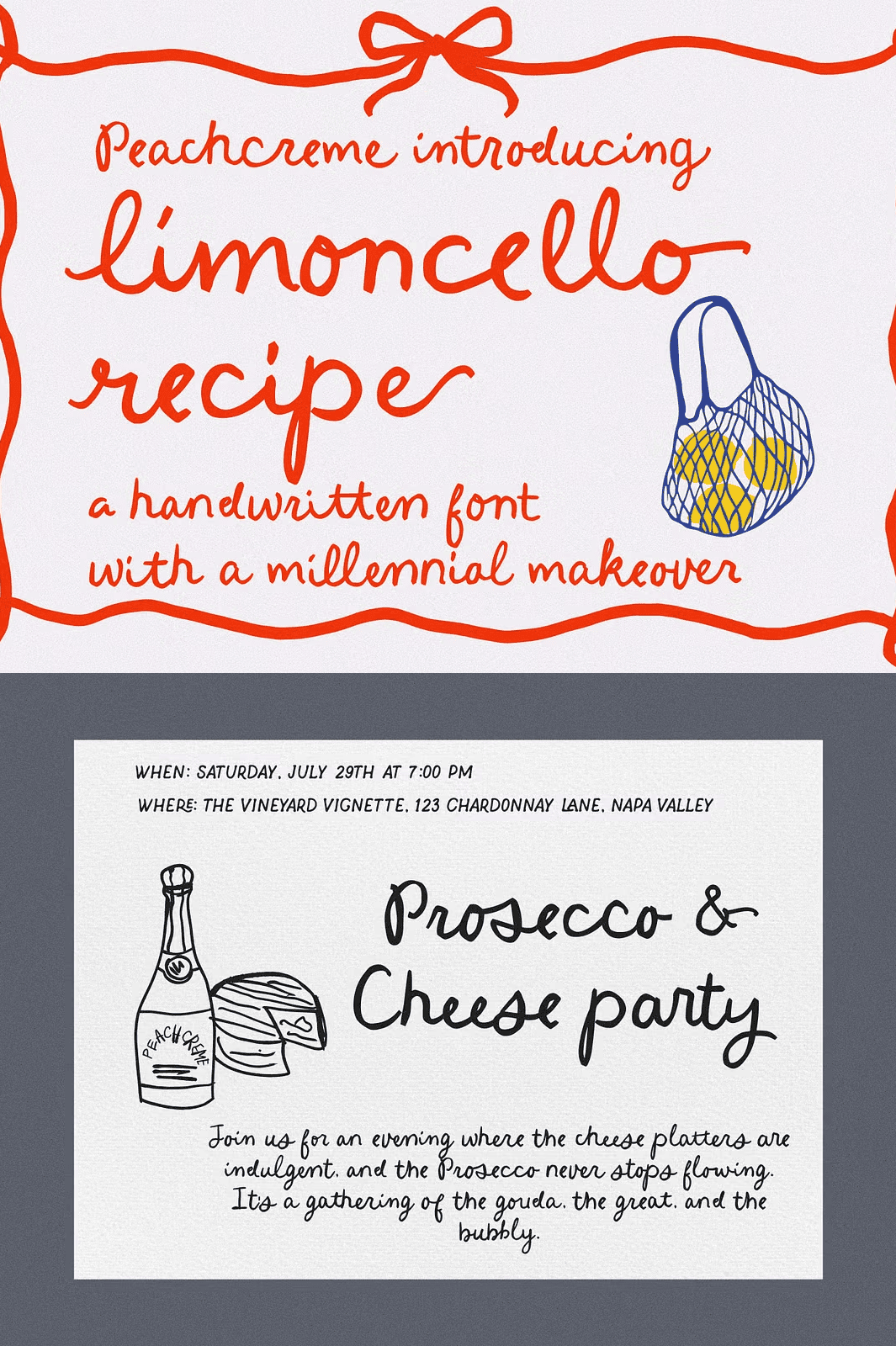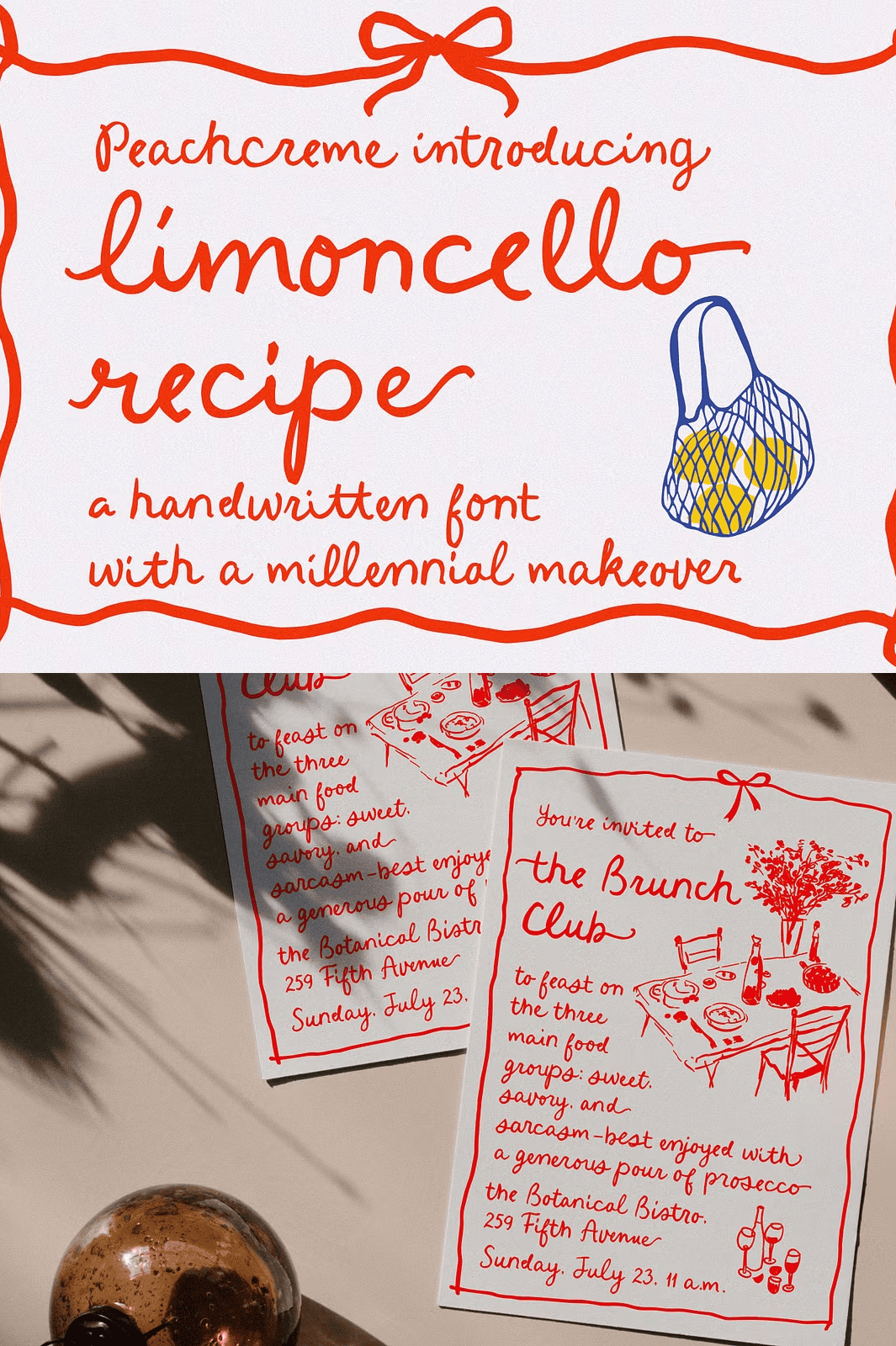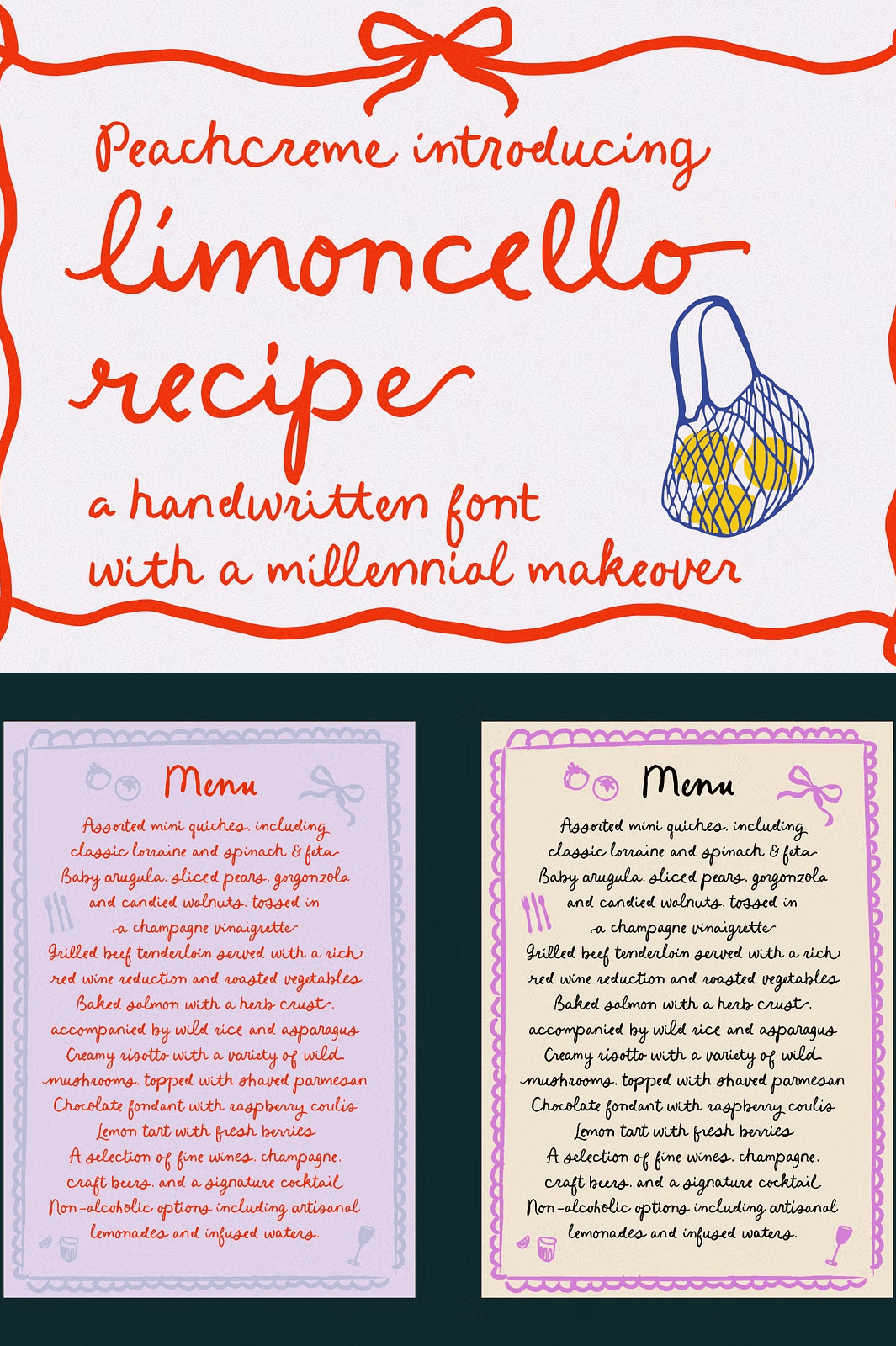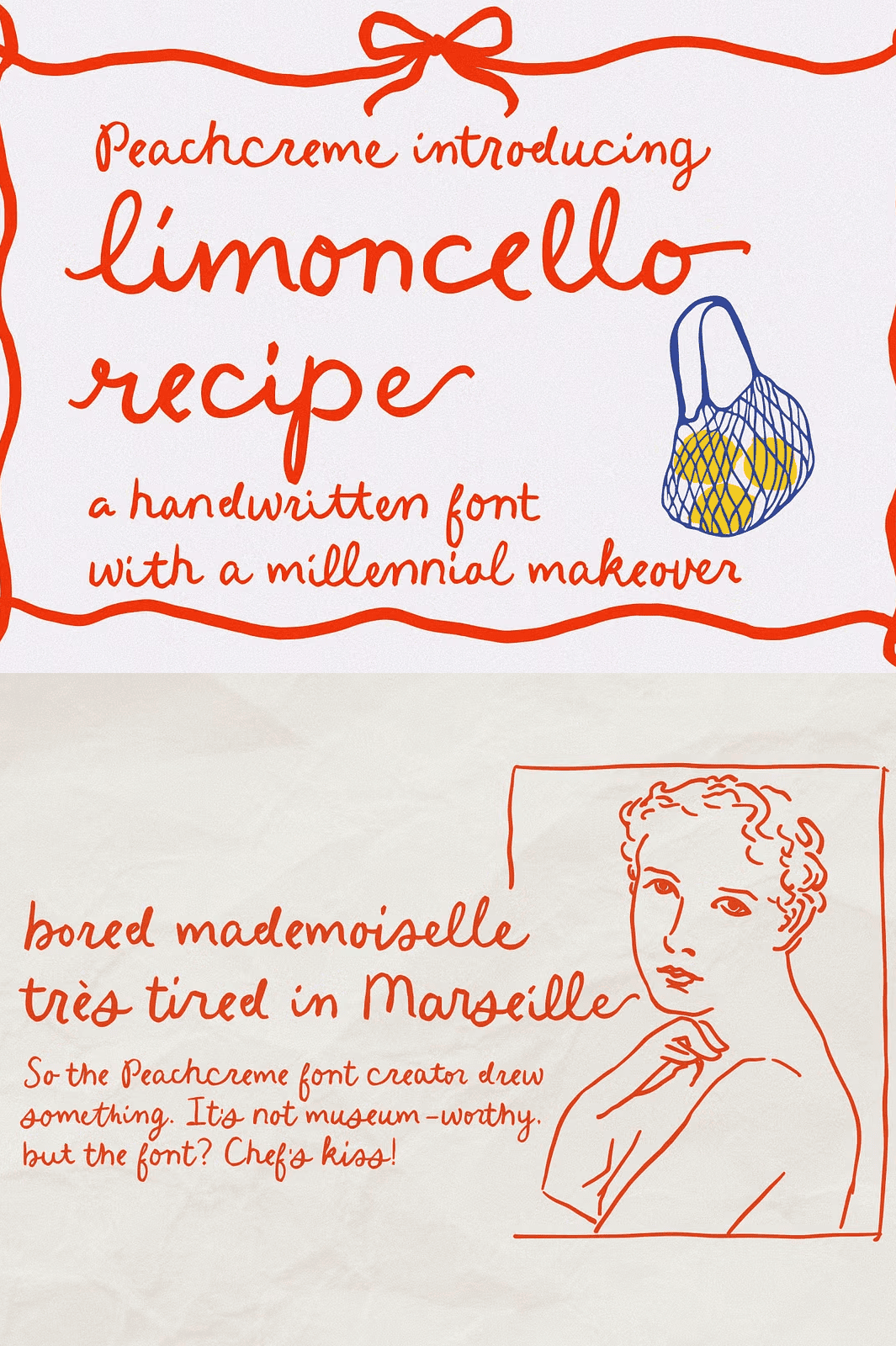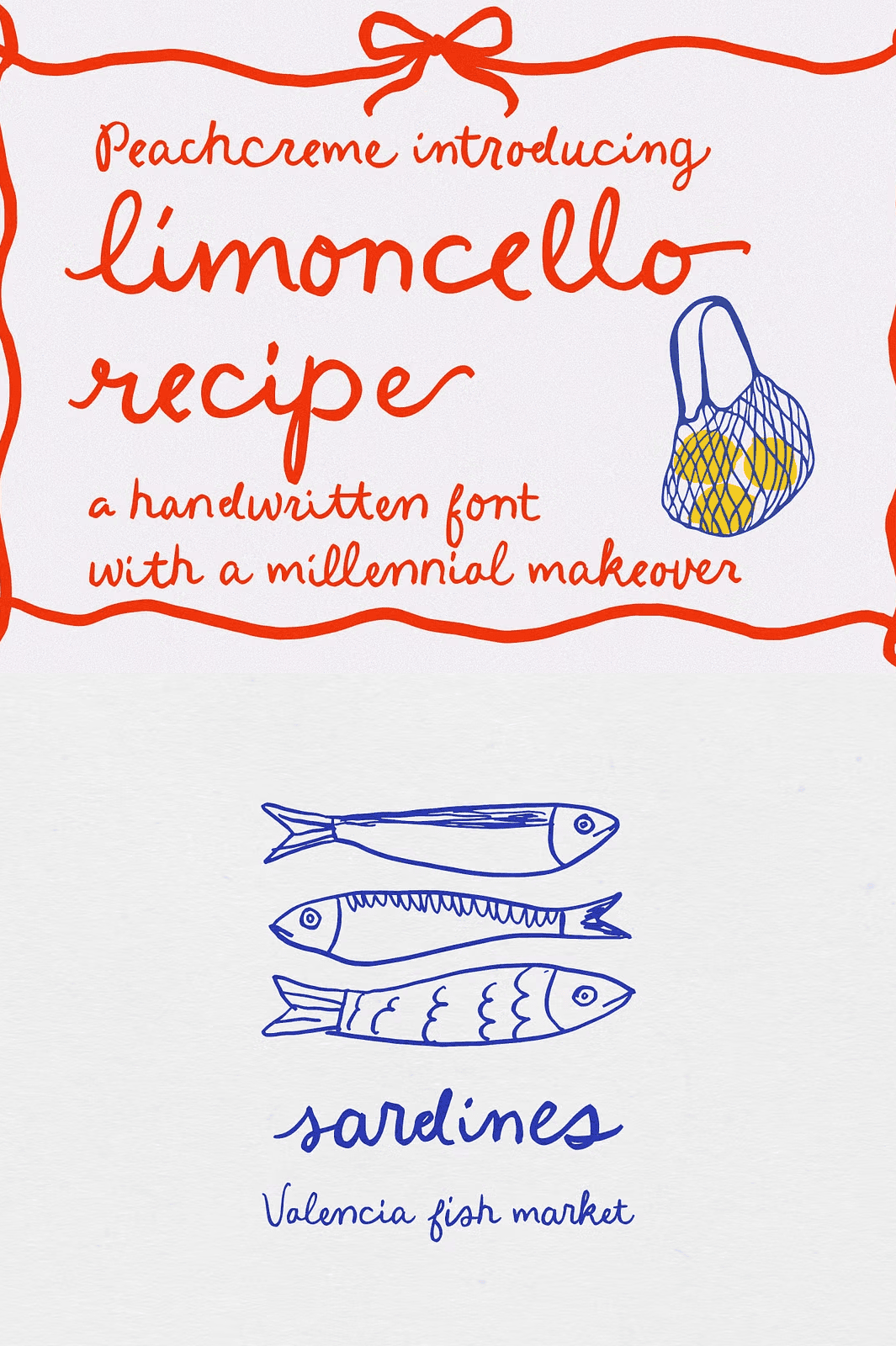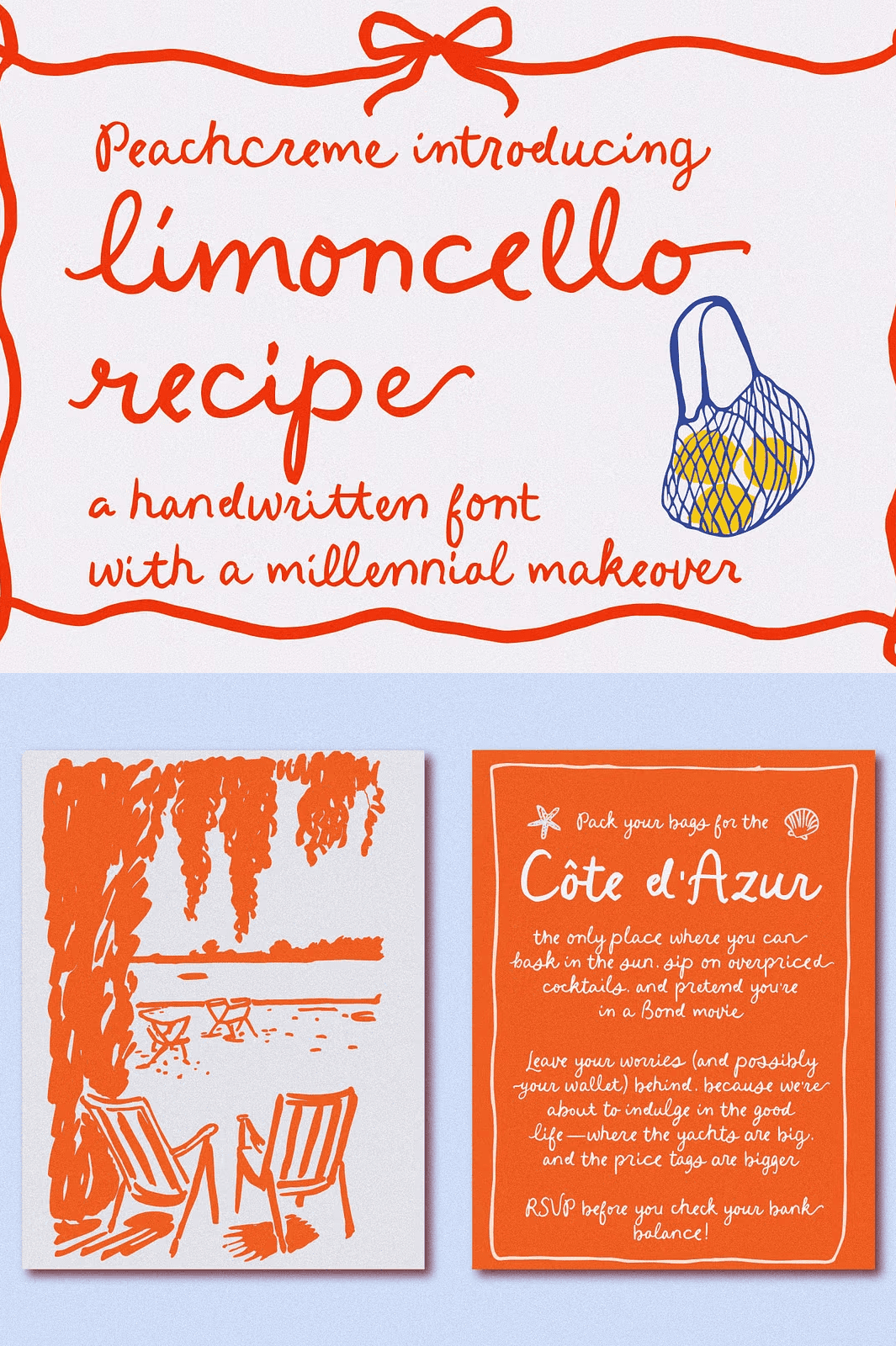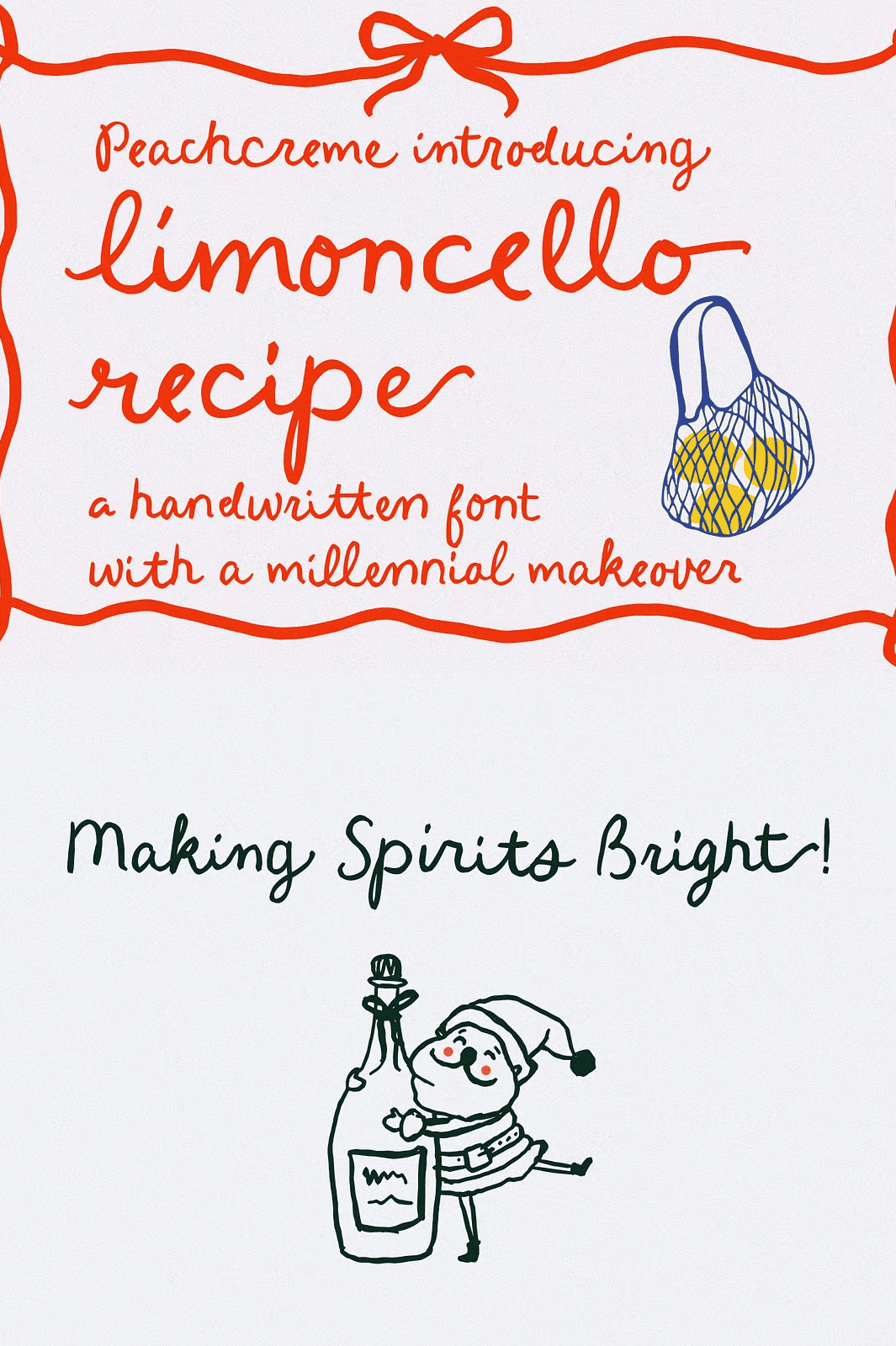
Unlock Authentic Handmade Typography with Delightfully Uneven Lines
Step into the world of expressive, human-driven design with **Limoncello Recipe**, a truly one-of-a-kind handwritten font that celebrates the joy of imperfect strokes. Crafted by Gulya from PeachCremeFonts, this bold script brings the warmth and soul of real handwriting into your digital projects. Every curve, every break in the line, and every slight variation is purposefully included to mirror the natural rhythm of a pen on paper just like the lovingly scrawled notes tucked into a well-worn family cookbook.
This is not a clean, sterile font. **This is art with character.** The deliberate asymmetry and organic flow of *Limoncello Recipe* make it ideal for brands that want to feel authentic, approachable, and deeply personal. Whether you’re crafting a quirky product label, designing a whimsical wedding invitation, or building a brand identity grounded in storytelling, this font speaks directly to the heart of individuality.
Explore 84 Hand-Crafted Ligatures for Seamless, Natural Flow
The magic of *Limoncello Recipe* lies in its 84 standard ligatures hand-designed connections that mimic how a real person naturally writes. These ligatures allow letters to link together with fluid grace, creating a sense of movement and continuity that’s impossible with basic fonts. No more clunky, disconnected text. Instead, your words will flow as if they were written in real time, capturing the spontaneity of thought on paper.
Each ligature is carefully positioned to reflect natural handwriting habits slight overlapping, gentle turns, and irregular spacing. This isn’t random, though. It’s precision artistry designed to add depth and texture to your typography, making the font feel alive, responsive, and deeply expressive.
Elevate Your Designs with Expressive Swashes and Stylistic Alternates
Want to add flair? *Limoncello Recipe* gives you **multiple beginning and ending swashes**, offering endless creative variation. Choose bold, sweeping flourishes for dramatic emphasis, or subtle, delicate curls for a more understated elegance. These alternates empower you to break out of standard patterns and craft unique typographic moments that capture attention.
Use them to frame a signature, accentuate the first letter of a quote, or create dynamic headlines. With these tools, you’re not just typing you’re **writing with intention**.
Perfect for Story-Driven Branding, Invitations, and Artisanal Design
This font thrives where personality matters. It shines in:
– **Artisanal Food & Beverage Packaging** – Bring a handmade feel to your products.
– **Event Invitations** – Design unforgettable wedding, baby shower, or garden party invites.
– **Brand Identity & Logos** – Build a brand that feels real, friendly, and memorable.
– **Social Media Graphics & Marketing Campaigns** – Stand out with text that feels personal and approachable.
– **Blog Headers & Quote Graphics** – Turn words into visual stories.
Its rustic charm and playful imperfections make it perfect for designers who reject sterile trends and embrace authenticity. It tells a story not just what it says, but *how* it was made.
With **Limoncello Recipe**, you’re not just selecting a font you’re choosing a design philosophy. One that values the beauty in irregularity, the strength in handcrafted detail, and the magic in the moment when a thought becomes a line.